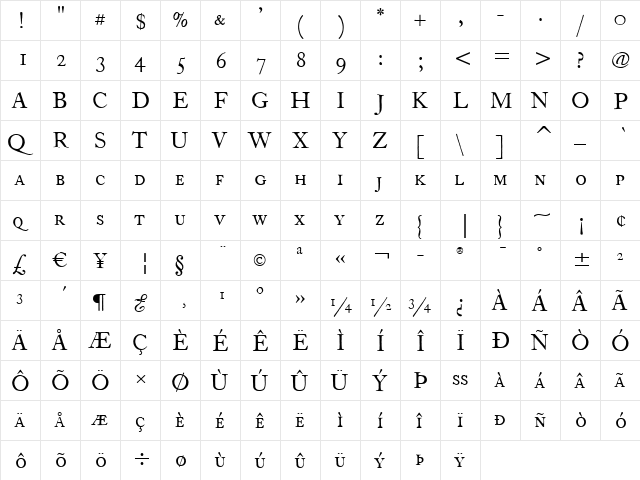
FCaslon 12 ITC Roman Font Preview
FCaslon 12 ITC Roman
FCaslon 12 ITC Roman Font Details
| Foundry | International Typeface Corporation |
Design Context for FCaslon 12 ITC Typeface
FCaslon 12 ITC takes a measured approach to typography — its balanced proportions and neutral character make it a reliable workhorse for both digital and print work.